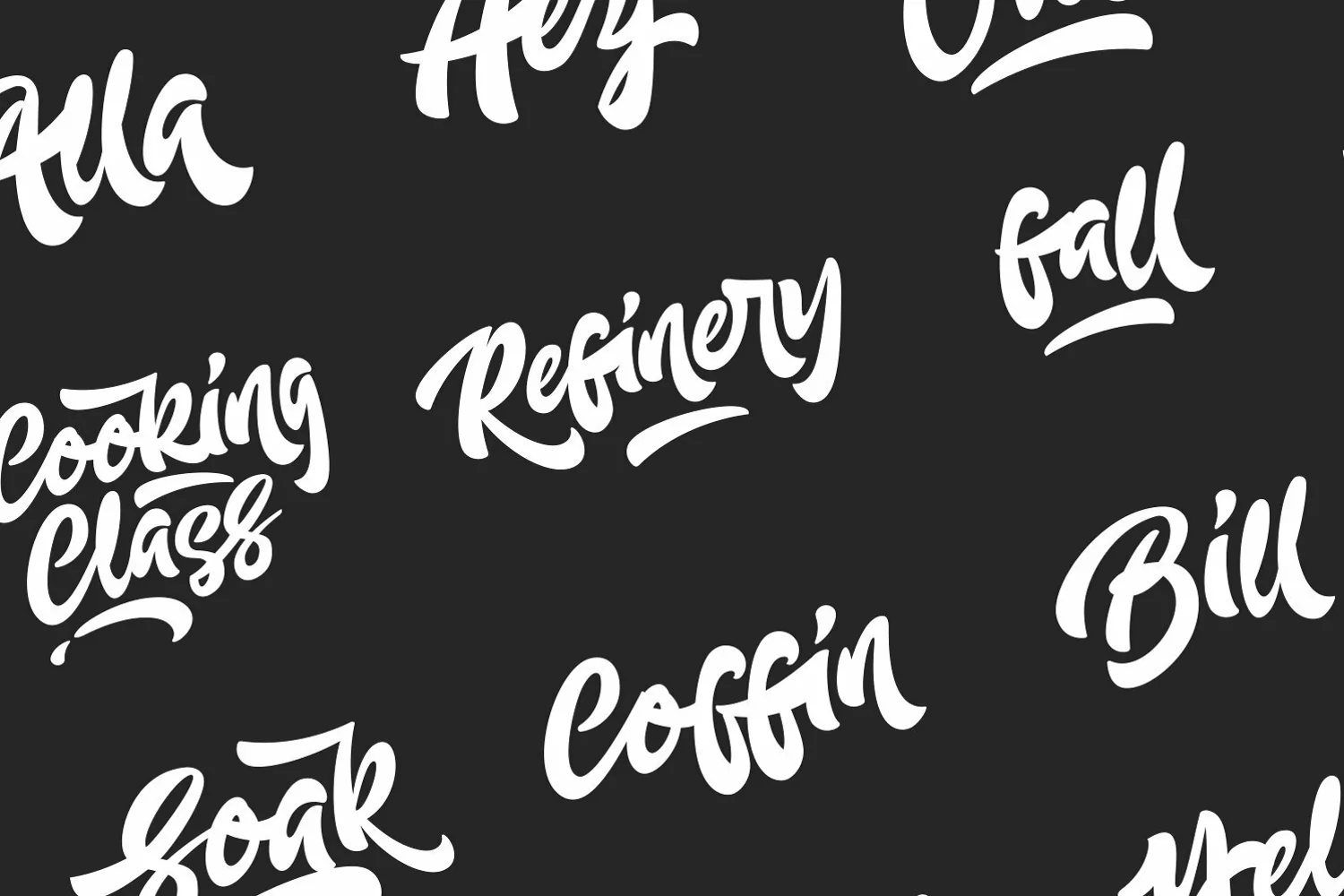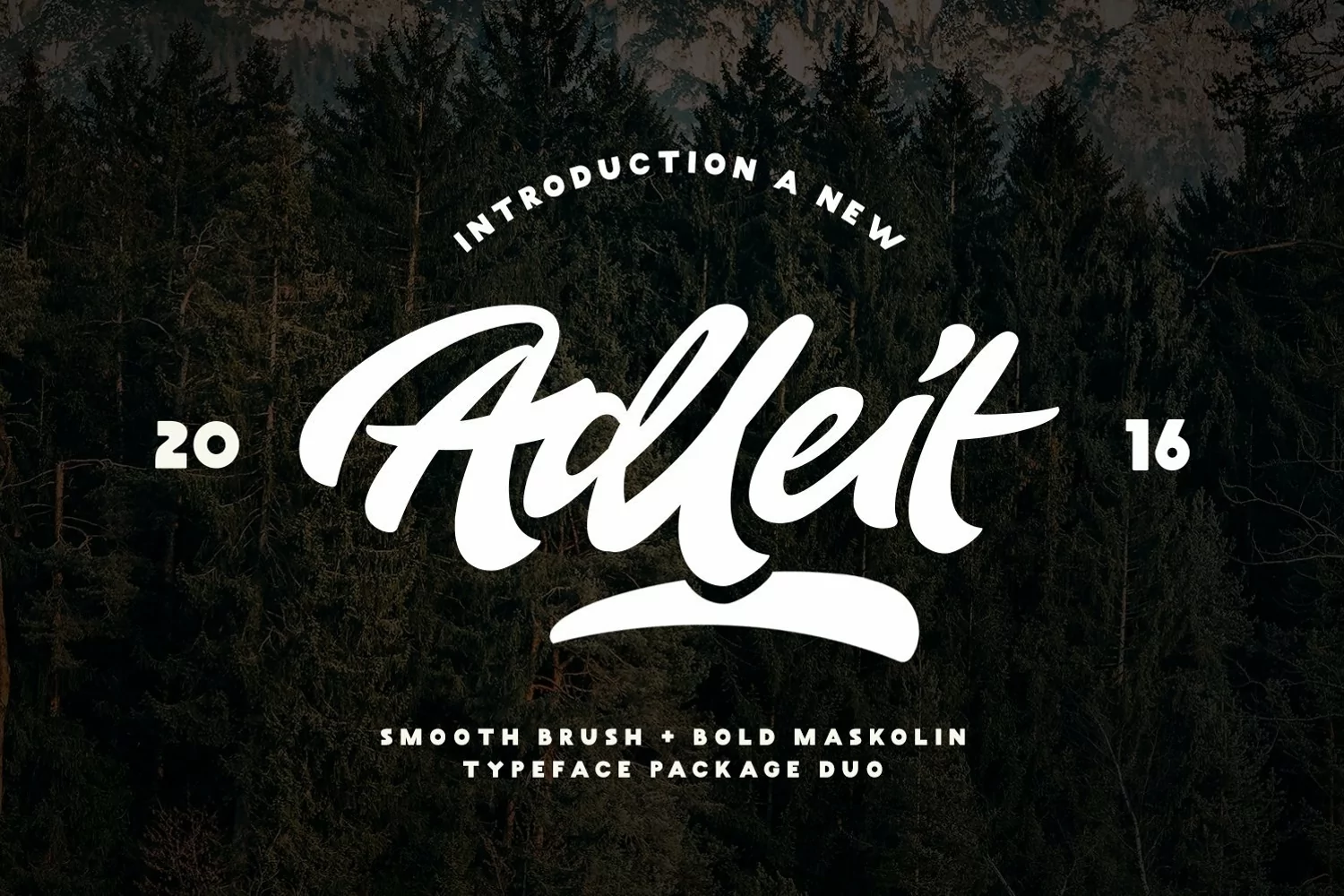
**Adleit is a brand new script typeface with handlettering style from us.**
Comes with the handlettering brush style and made to give you ease in accomplishing the work of typography such as logotype, poster, headline, and other creative projects. Adleit comes with usability to use for Logotype, Letterhead, Poster, Apparel Design, Label and etc.